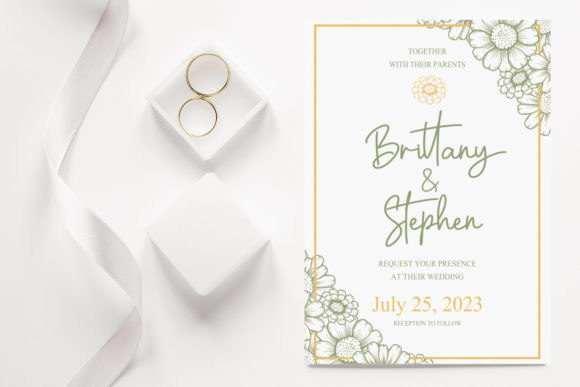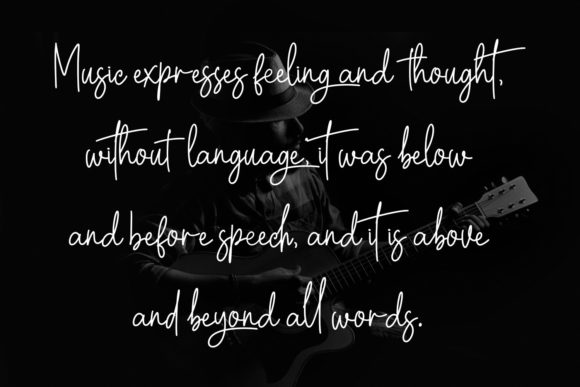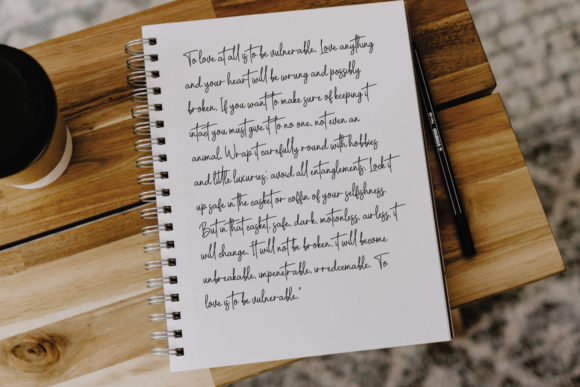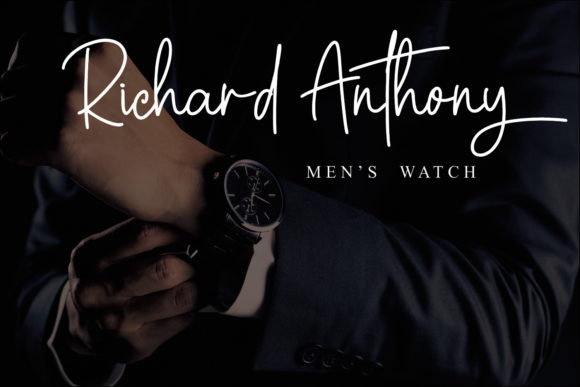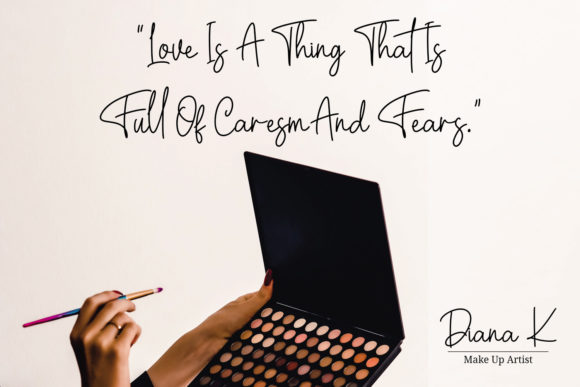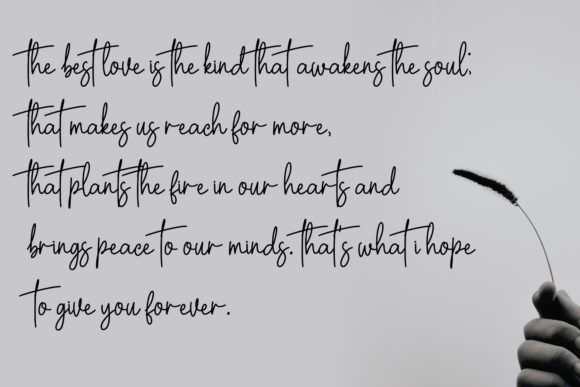
The Perfect Script for Your Next Project
As a designer, you’ve probably found yourself staring at a blank page, trying to decide on the perfect font to convey your message. The words “sophisticated” and “elegant” come to mind, but where do you start? The search for the perfect script font can be overwhelming, but we’ve got you covered.
Meet the Headstrong Script Font, a chic and refined script font that’s sure to elevate your next project. With its stylish alternates and ligatures, this font is the perfect match for any designer looking to add a touch of sophistication to their work. And with PUA encoding, you can access all glyphs and swashes with ease, making it a valuable addition to any design toolkit.
Key Features of Headstrong Script Font
- Font Family: Headstrong Script Font is a unique, handwritten font family that comes in 6 different styles: Headstrong Script, Headstrong Script Rough, Headstrong Script Rough Italic, Headstrong Script Inline, and Headstrong Script Inline Italic.
- Unique Characteristics: Features a distinctive, handwritten feel with varying line widths, letterforms, and flourishes, giving it a personal and creative touch.
Headstrong Script Font Review
Overall, I think the Headstrong Script Font has some amazing qualities, but it’s not perfect. Let’s dive into what works well and what doesn’t.
- Beautiful, elegant curves: The font’s script style is a true work of art. The flowing lines and gentle swashes create a sense of sophistication and refinement.
- High-quality typography: The font is well-made, with clear and readable letterforms that are perfect for display use.
- Great for branding: The Headstrong Script Font is perfect for creating a strong, memorable brand identity. Its unique style is sure to set you apart from the competition.
- Limited language support: The font only includes Latin script, which may limit its use for non-English languages.
- Not ideal for small text: Due to its script style, the font may not be the best choice for small text sizes, as it can become difficult to read.
- Lack of italic and bold styles: While the font includes a regular weight, it’s missing italic and bold styles, which may limit its versatility.
Overall, I’d give the Headstrong Script Font 4 out of 5 stars. It’s a beautiful, elegant font that’s perfect for display use and branding, but its limitations may hold it back from being a go-to font for everyday use.
Tips for Getting the Most Out of Headstrong Script Font
1. Use Headstrong Script Font for titles and headings to add a touch of elegance.
2. Pair Headstrong Script Font with a clean sans-serif font for body text.